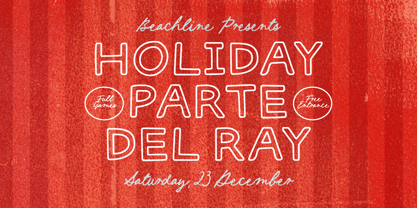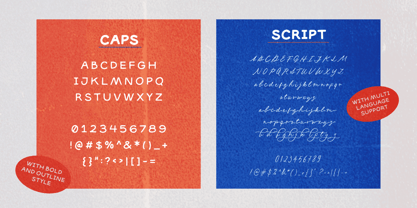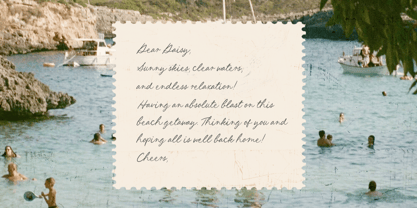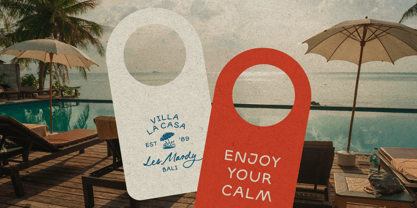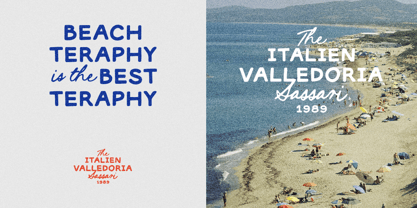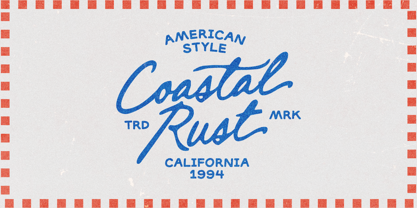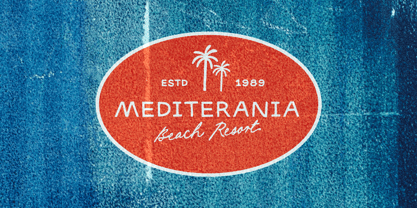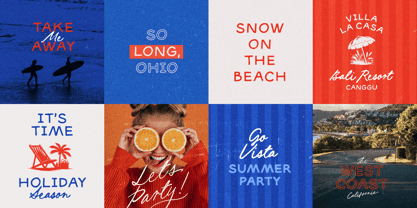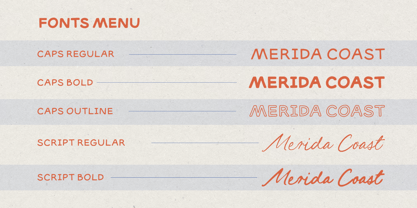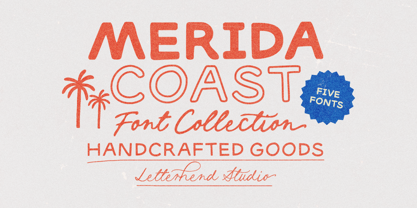
Merida Coast
by Letterhend
The Merida Coast Font Family was designed by Hendry Juanda and published by Letterhend. Merida Coast contains 5 styles and family package options. More about this family
Merida Coast captures the spirit of classic beach vacations through a versatile collection of handcrafted lettering styles. Rounded sans fonts pair naturally with elegant handwritten scripts, offering endless opportunities for layered headlines, logos, and editorial layouts that feel relaxed yet refined.
Designers: Hendry Juanda
Foundry: Letterhend